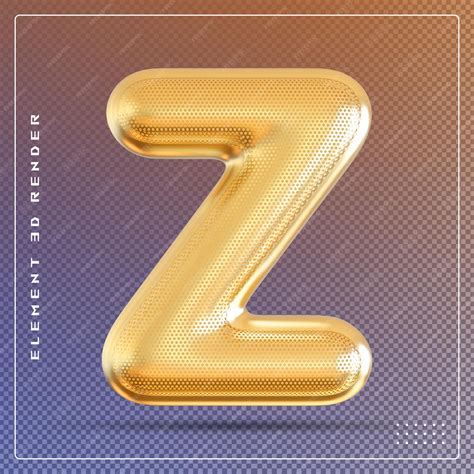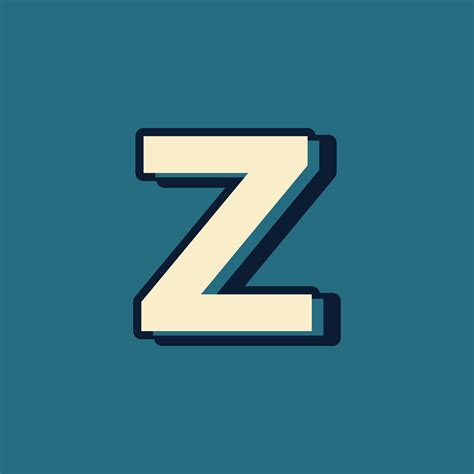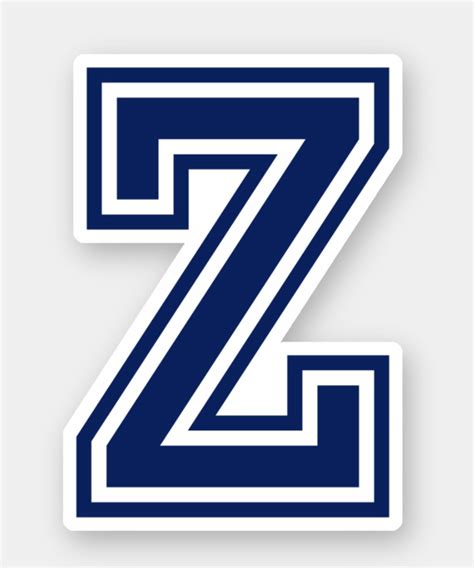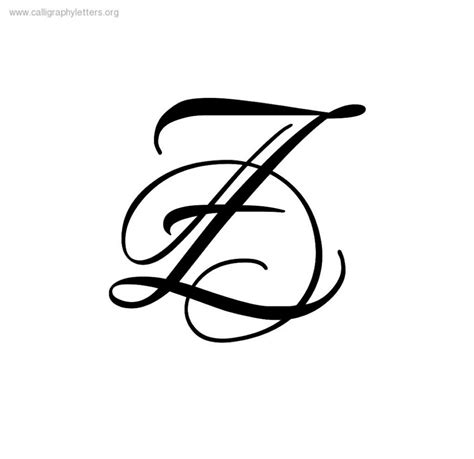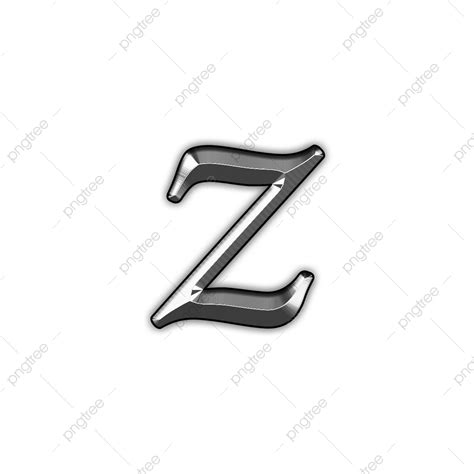
Typography serves as the optical backbone of communication, and sometimes, the focus narrows downwardly to specific characters that transmit unique aesthetic weight. When decorator search for Letter Z Fonts, they are frequently appear for that complete balance between geometric sharp edge and esthetic genius. Because the missive Z is arguably one of the most structurally interesting characters in the Latin alphabet - due to its diagonal strokes and potential for both reductivism and complex ornamentation - selecting the correct typeface can specify the integral climate of a undertaking. Whether you are crafting a mod logo, a futurist book covert, or a high-impact headline, the way this specific letter is interpret ofttimes find the success of the visual identity.
The Evolution of Letter Z in Typography
The letter Z has a rich account, tracing its root rearwards to the Phoenician missive zayin. Throughout the centuries, it has acquire from simple straight lines into the advanced glyphs we see today. In modernistic digital design, Letter Z Case can be categorise into several distinct way that ply to different marque motivation.
Geometric Styles
Geometric face treat the letter Z as a study in triangle and parallel lines. These baptistery are much affiliate with the Bauhaus movement, emphasizing function over form. A well-designed geometrical Z render a sense of stability and forward motion, which is idealistic for tech-focused companies or minimalist architecture portfolios.
Decorative and Script Variations
Conversely, script and cosmetic face ofttimes push the limits of the Z. By adding flourish, loops, and varying line weight, decorator can transform a standard quality into an graceful centrepiece. These type are sodding for opulence branding, marry invitation, or high-end lifestyle magazines where elegance is the anteriority.
Choosing the Best Typeface for Your Project
When you are appraise potential baptistery, consider the context of your layout. A sharp, angulate Z might appear first-class in a sports brand logotype but could experience out of place in a gentle, editorial environment. Below is a breakdown of how different assortment impact the perception of the letter:
| Font Category | Optic Encroachment | Best Use Case |
|---|---|---|
| Serif | Traditional, Authority | Column, Book Covers |
| Sans-Serif | Clean, Modern | UI Design, Corporate |
| Display/Script | Decorative, Unique | Logos, Posters |
💡 Line: Always essay your chosen case in both uppercase and lowercase, as the letter Z much undergo ultra transformation between these two cases.
Key Elements of an Effective Z-Glyph
Decorator look for specific technical dimension when choose typeface where the Z is a focal point. These dimension help insure legibility while maintaining a distinct optic signature:
- Stroke Balance: How the horizontal top and bottom saloon concern to the diagonal.
- Terminal Fashion: Are the ends of the cva flat, rounded, or sharpen?
- Tabulator Size: The negative space within the aslant structure of the Z.
- Consistency: Control the Z matches the weight and stroke logic of the rest of the abcs.
The Importance of Kerning
Due to the slanting nature of the missive Z, kerning - or the spacing between characters - is critical. If the spacing is too taut, the Z can collide with neighboring missive, create an unprofessional look. Effective spacing ensures that the sloping white space around the Z is equilibrate, allow the character to "breathe" within the tidings.
Subdue the covering of case involves more than just selecting a visually likable fibre; it requires a deep understanding of how item-by-item letters interact within a broader linguistic system. By paying tending to the structural nuances of the letter Z - its angles, weight, and spacing - you can make typography that is both extremely readable and artistically redolent. Whether you slant toward boldface, mod geometrical designs or intricate, wave script fashion, the goal remains the same: to create a visual concord that serve the overall content of the plan. When action with precision and intentionality, the quality Z become more than just a missive; it turn an crucial element of high-quality typography.